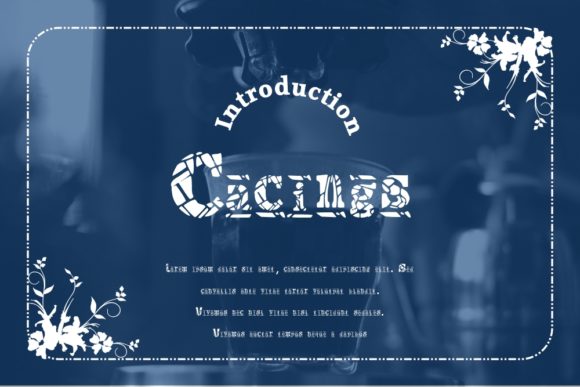
Cacings is a fun display font that features an original and playful look, complete with cute dingbats that will add a special touch to your designs. In this article, we’ll dive into the world of Cacings Font, exploring its features, how to use it, and some similar fonts you might love.
An Honest Review of Cacings Font
- ✅ Unique and playful design that’s perfect for creative projects
- ✅ Includes a range of cute dingbats to add an extra touch of personality
- ✅ Easy to read and works well for both headings and titles
- ✅ Highly versatile and can be used for a variety of design projects, from party invites to branding materials
- ⚠️ Limited use for body text due to its display font nature
- ⚠️ May not work well for very small font sizes or low-resolution images
The Backstory Behind Cacings Font
Cacings Font was designed with one goal in mind: to bring a playful touch to your designs. The designer, a self-proclaimed font enthusiast, wanted to create a font that would make people smile. With its unique and quirky design, Cacings Font is sure to bring a bit of joy to your projects.
| Font Name | Cacings Font |
| Author | Gblack Id |
Q: What type of projects is Cacings Font best suited for?
A: Cacings Font is perfect for creative projects like party invites, branding materials, and social media graphics.